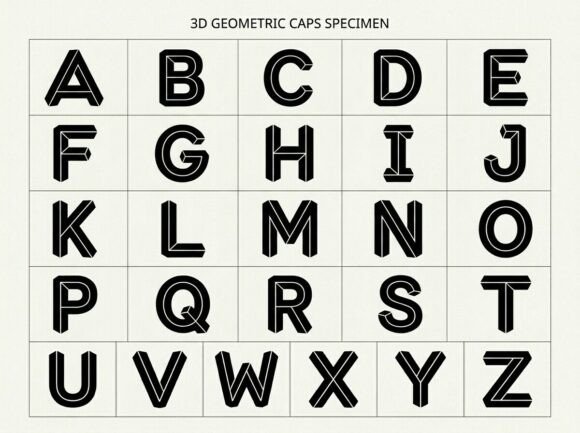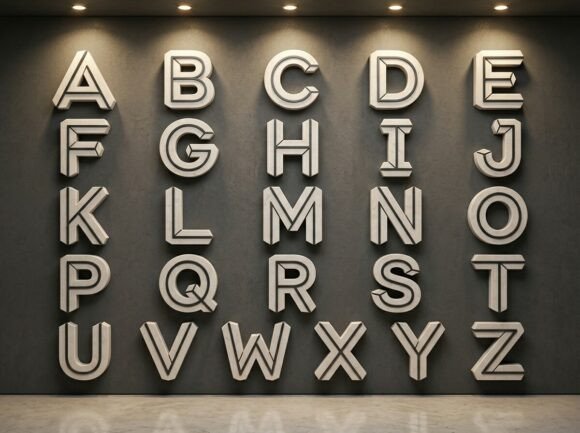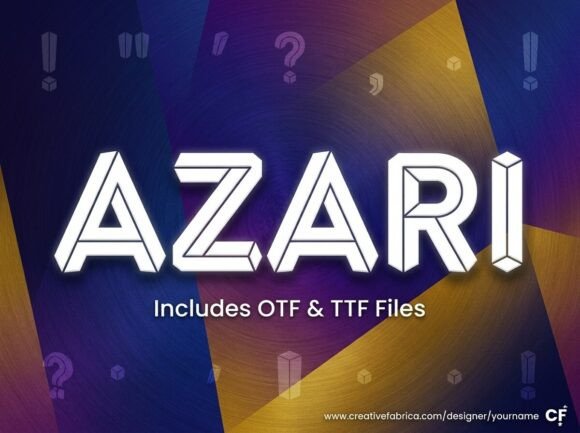
The Perfect Font for Making a Statement
You know that moment when you’re brainstorming ideas for a new project, and suddenly the perfect concept hits you? The excitement is palpable, and you can’t wait to bring your vision to life. For designers, this moment is often the spark that sets off a creative chain reaction. But what if you had the perfect tool to take your design to the next level? Enter the Azari Font, a stunning decorative display font designed to be the center of attention.
| 📌 Product Name | Azari Font |
| 👤 Author | LINEART3 |
This versatile font is perfect for bold headlines, artistic logos, and creative packaging, all while maintaining a professional and polished finish. Its unique artistic elements and strong visual personality make it a valuable addition to any designer’s toolkit. Whether you’re working on a high-impact campaign or simply want to add some flair to your personal brand, the Azari Font is sure to deliver.
Azari Font Key Features
- Font Family: Azari Font is a sans-serif font family designed for modern and clean typography. It comes in 6 different weights: Light, Regular, Medium, SemiBold, Bold, and Black.
- Size and Resolution: Designed to be highly legible at small sizes, Azari Font is optimized for digital use with a resolution of 300 DPI (dots per inch).
- Unique Characteristics: Azari Font features a unique geometric shape with a modern and minimalist aesthetic, making it ideal for use in digital products, logos, and branding materials.
Azari Font Review
When I first stumbled upon the Azari Font, I was immediately drawn to its unique and exotic flair. The intricate details and ornate patterns that make up this font truly ✨ stand out from the crowd.
Here are some of the things that I think work well:
- ✨ Elegant and sophisticated look: The Azari Font exudes a sense of luxury and refinement that’s perfect for high-end branding and design projects.
- ✨ Versatile: This font is suitable for a wide range of applications, from posters and flyers to business cards and websites.
- ✨ Distinctive: The Azari Font’s unique style helps to create a memorable and impactful visual identity for any brand or project.
However, I do have a few reservations:
- ⚠️ Limited character set: The Azari Font may not be suitable for projects that require a large number of characters, such as books or documents with extensive text.
- ⚠️ Can be overwhelming: The intricate details and ornate patterns that make up this font can be distracting if used in excess.
Overall, I think the Azari Font is a great choice for designers who want to add a touch of sophistication and elegance to their projects. While it may have some limitations, its unique style and versatility make it a valuable addition to any designer’s toolkit.
Azari font is ideal for:
1. Creating elegant and sophisticated designs.
2. Adding a touch of luxury and sophistication to your branding materials.
3. Designing invitations, menus, and other formal documents.
Tips for Getting the Most Out of Azari Font
1. Use Azari font in combination with other elegant fonts for a sophisticated look.
2. Experiment with different font sizes and colors to create a unique design.
3. Use Azari font for headings and titles to add emphasis and visual interest.
Comparison to Azari Font: Montserrat has a more geometric and futuristic feel compared to Azari Font’s elegant and cursive style. While Azari Font is perfect for creative and artistic projects, Montserrat excels in modern and minimalist designs.